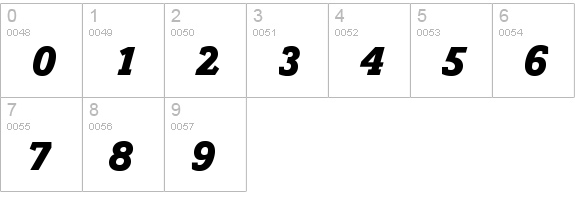
Osiris BQ Bold Italic is a strong, high-contrast, italic variant in the Osiris typeface family \xE2\x80\x94 well suited to headlines, attention-grabbing titles, and strong calls-to-action.
Osiris BQ Bold Italic is a striking and elegant typeface that exudes confidence and sophistication. Its bold strokes and italicized design make it perfect for adding emphasis and style to any project. The Osiris BQ Bold Italic font combines modernity with a classic feel, making it versatile for a wide range of design applications. What sets Osiris BQ Bold Italic apart is not just its design, but also its availability. This premium font is available for free download at FontsMarket.com, allowing designers and creators to access this high-quality typeface without any cost. With its unique blend of boldness and elegance, Osiris BQ Bold Italic is sure to elevate any design project to the next level. Download it today and see for yourself the impact this font can make on your work.